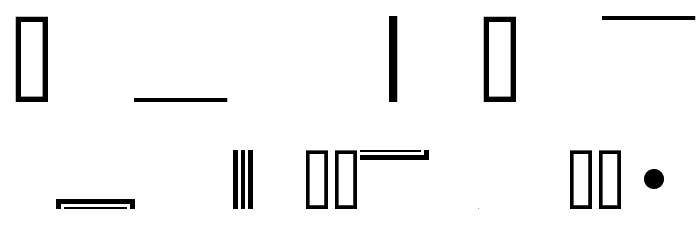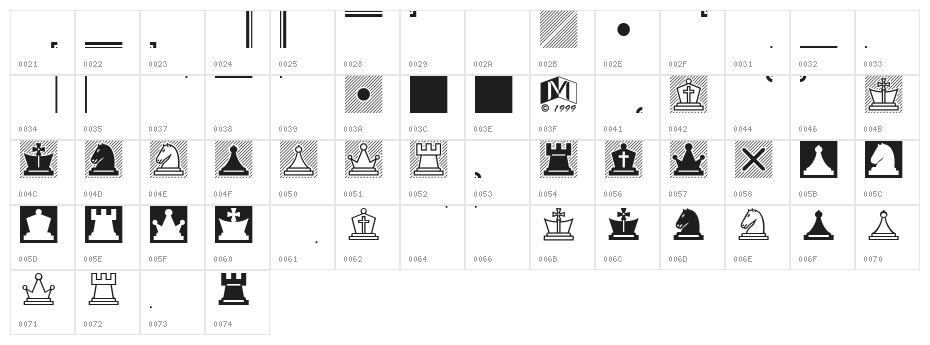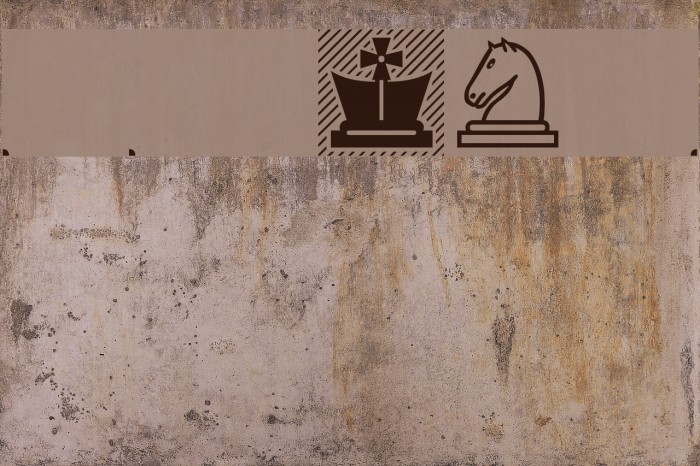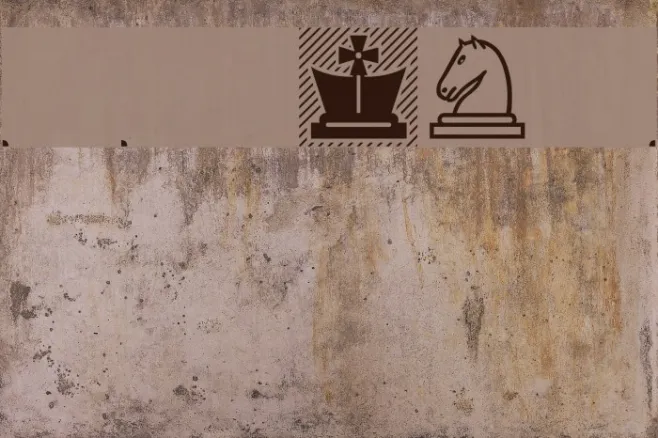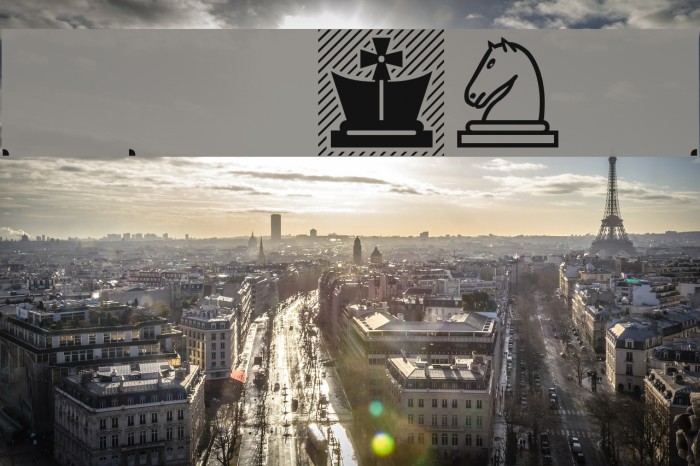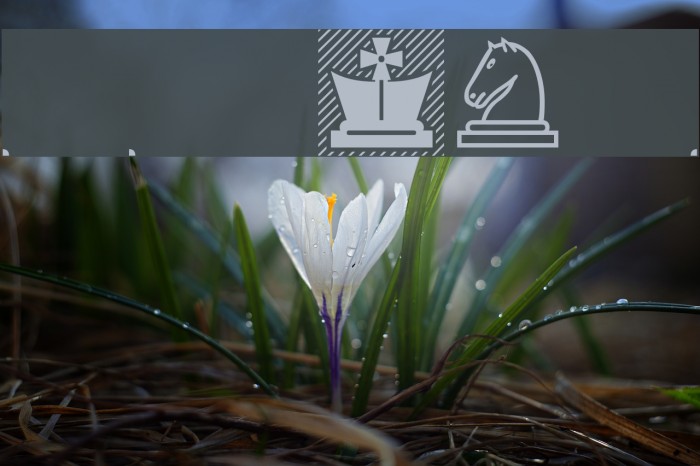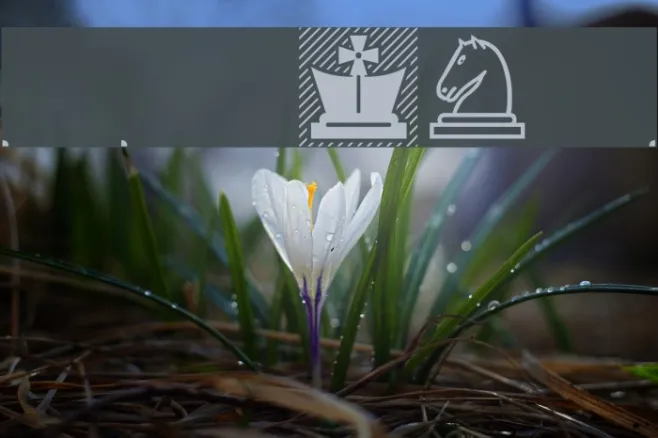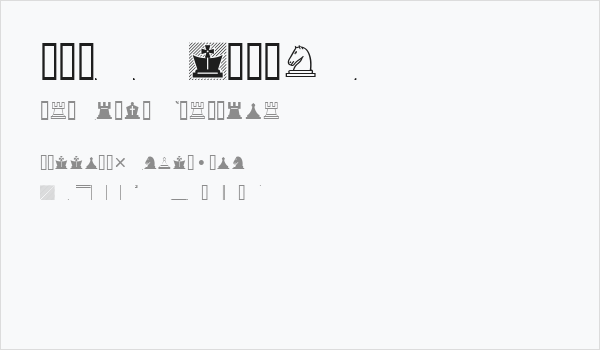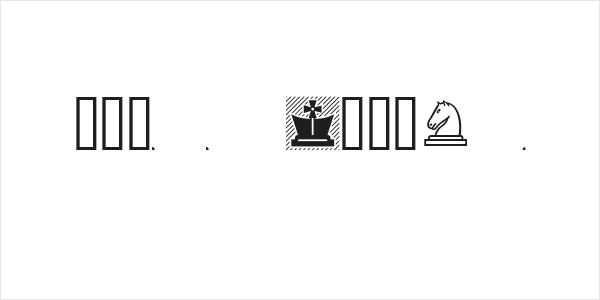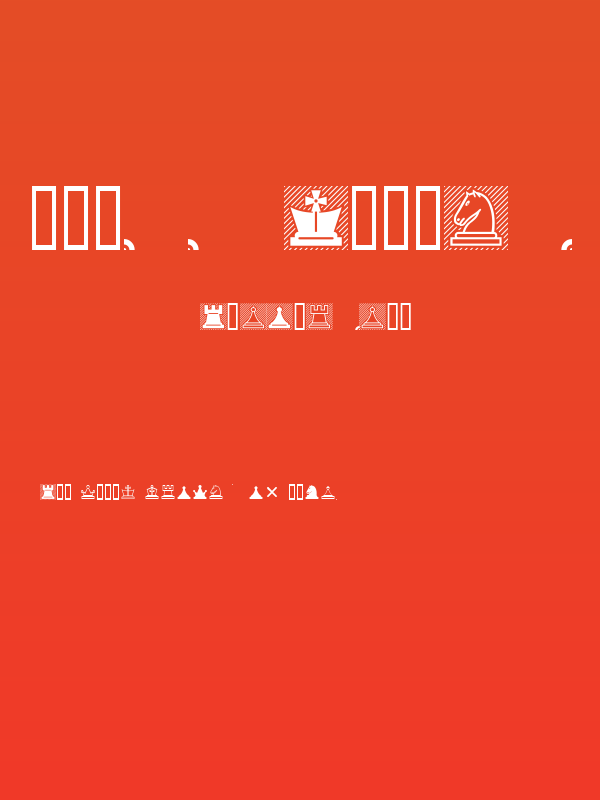
Chess Lucena Font
Chess Lucena Description
This font is a unique and thematic representation of chess pieces, incorporating the iconic shapes of kings, queens, rooks, bishops, knights, and pawns into its design. Each character is stylized to resemble a chess piece, making it highly decorative and specialized. The font features bold lines and geometric shapes, with a playful yet sophisticated aesthetic. It is not designed for traditional text but rather for thematic displays and creative projects. The characters are evenly spaced, and the overall style is both modern and classic, capturing the timeless appeal of chess.